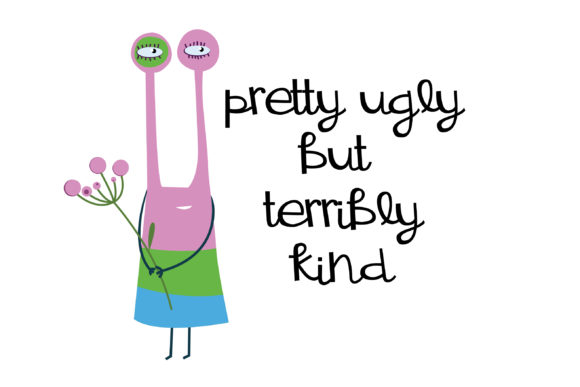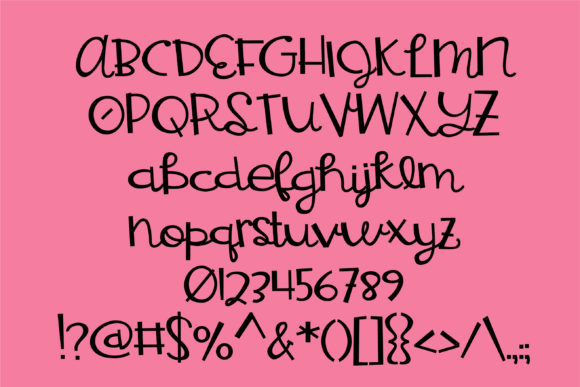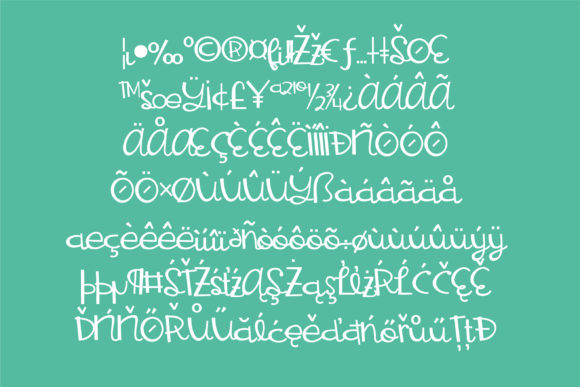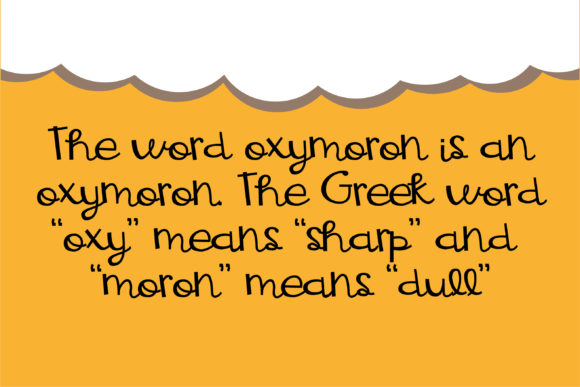
HomeScript FontsOxymoronic Font Script Fonts Oxymoronic Font FacebookXPinterestWhatsApp Oxymoronic Font Poster 2 Oxymoronic Font Poster 3 Oxymoronic Font Poster 4 Oxymoronic Font Poster 5 About Oxymoronic Font This casual handwritten script has a rigid and whimsical feel to it. DOWNLOAD NOW People also explored Monday Delight Font Mermaid Uniqorn Font Cagakara Font Astoylist Font Verstyle Font Gerano Font Boverley Font Hallimun Font Asian Font 268 0 TagsOxymoronic Font Previous articleTomato Sauce FontNext articleHangry Font LEAVE A REPLY Cancel reply Comment: Please enter your comment! Name:* Please enter your name here Email:* You have entered an incorrect email address! Please enter your email address here Website: Save my name, email, and website in this browser for the next time I comment. Personal Use Free Old Linoleum Personal Use Free Read more about this font Rhetorical Personal Use Free Read more about this font Expaing Personal Use Free Read more about this font Hello December Personal Use Free Read more about this font BLOG Where to Buy American Fonts Online in 2024 Where to Buy American Fonts Online: The Ultimate Guide for 2024 Looking for the perfect American font to elevate your design projects? You're in the... Free Fonts Risk: Why Free Fonts Can Be Dangerous for Designers Top 7 Google Fonts Alternatives for Faster and Privacy-Friendly Web Design (2025) 5 Fonts That Will Dominate Design Trends in 2026